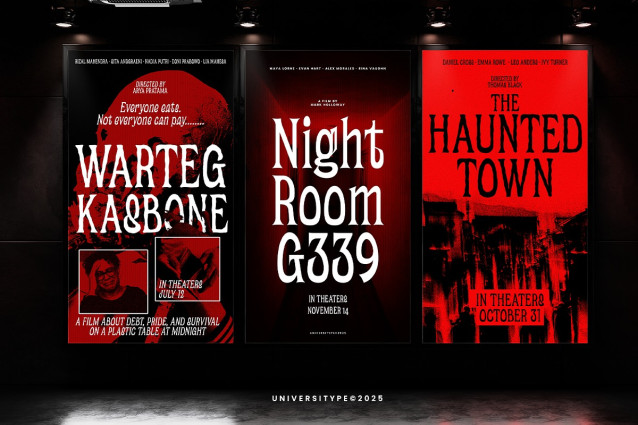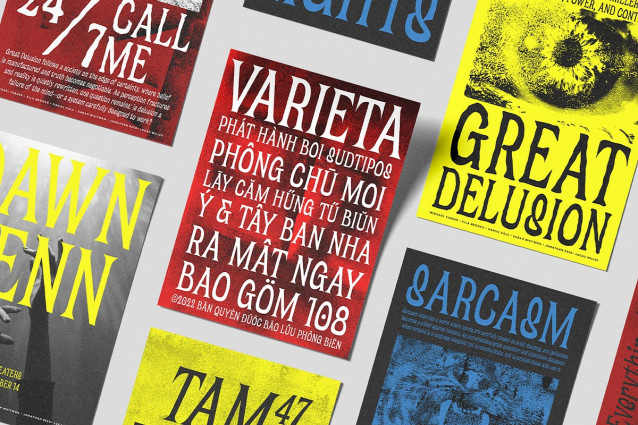
UT Matemija Font
UT Matemija Font is a cinematic serif typeface designed for dramatic visuals, suspenseful storytelling, and high-impact display use. Inspired by classic movie title cards and psychological horror aesthetics, it combines sharp wedge serifs with organic, slightly distorted curves to create tension and atmosphere without losing clarity.
The typeface includes four expressive styles that allow designers to shift the mood from clean and composed to warped and unsettling, making it ideal for projects where emotion and character matter.